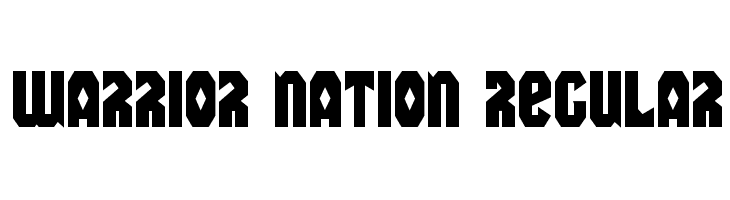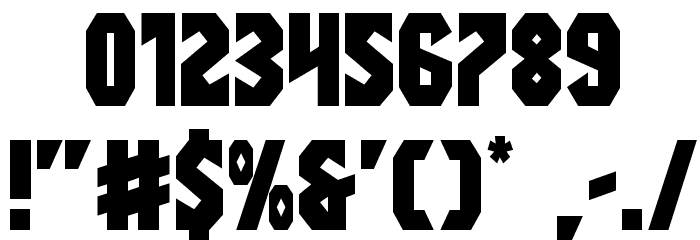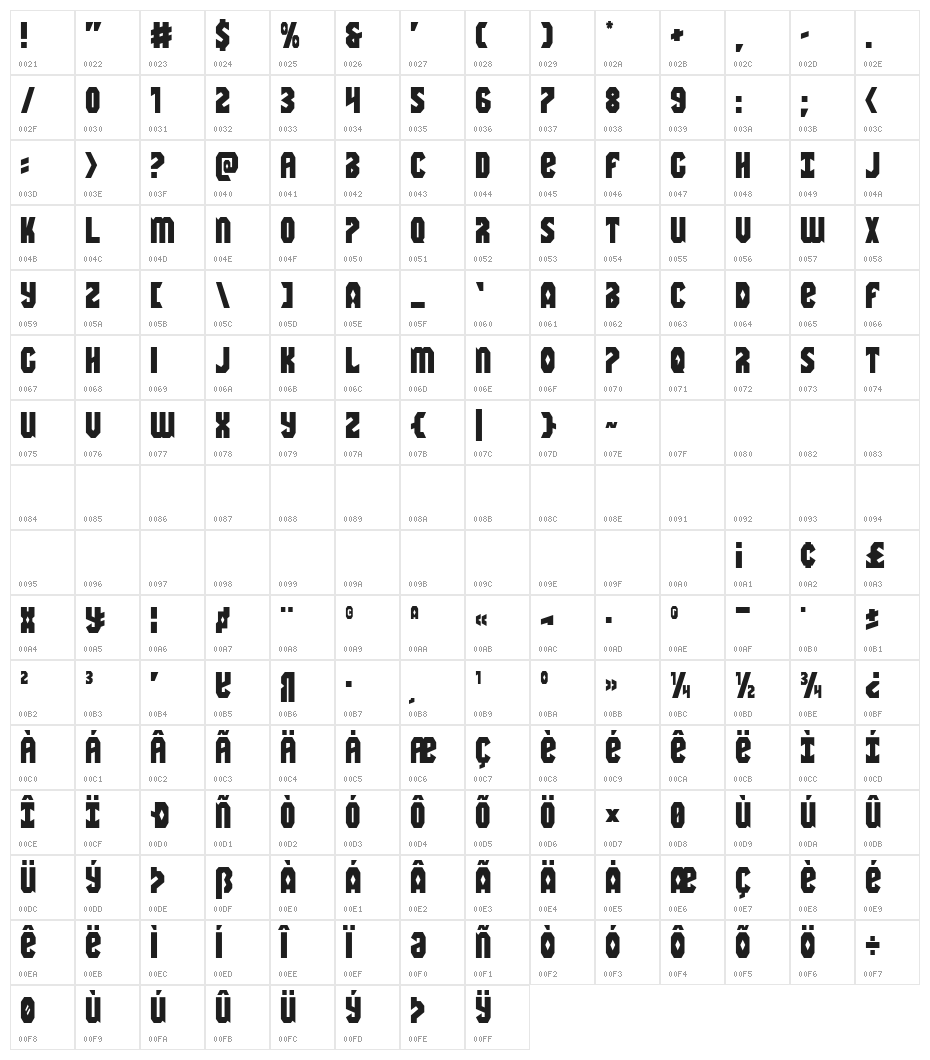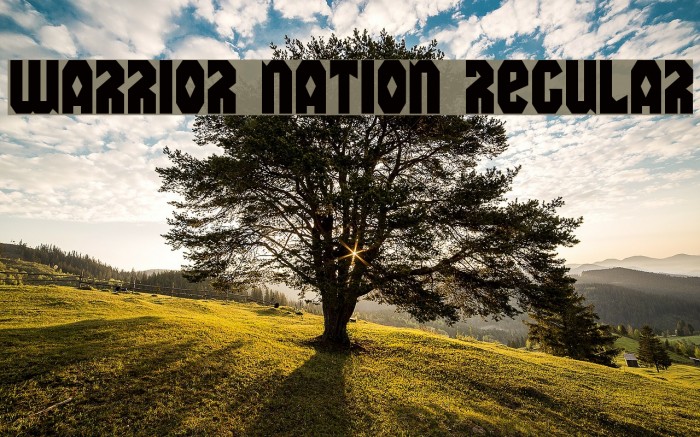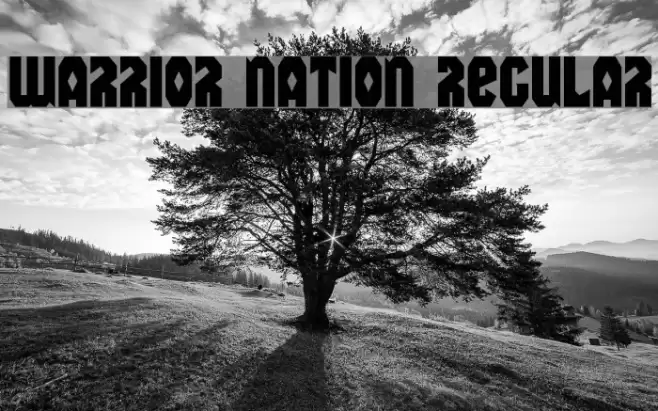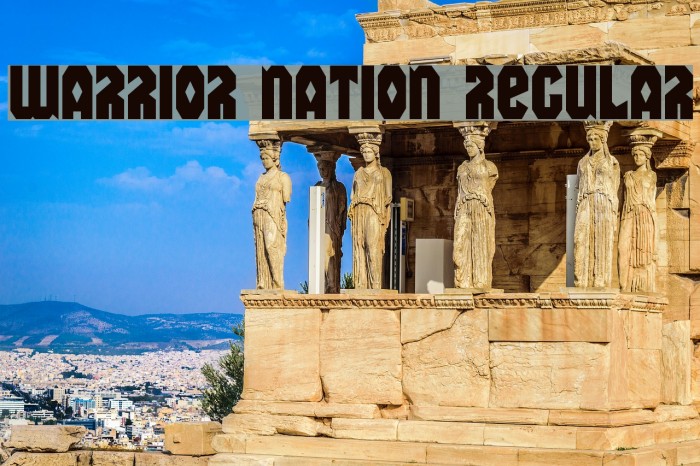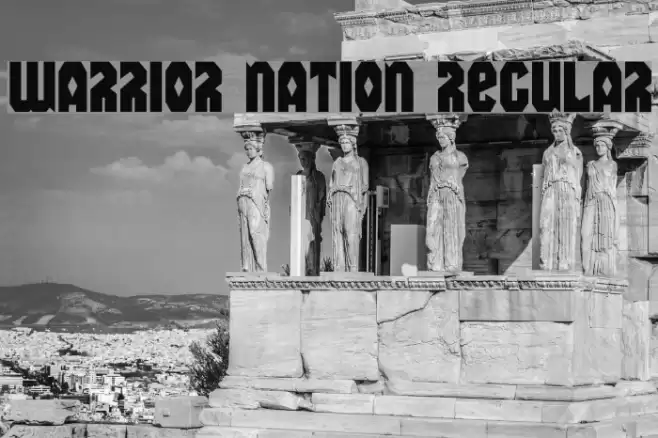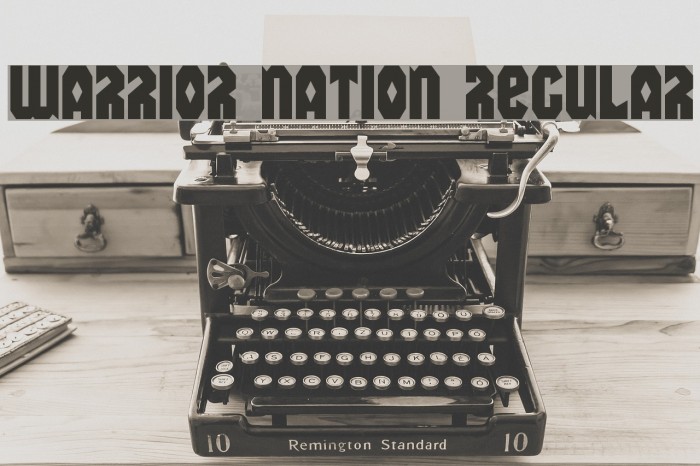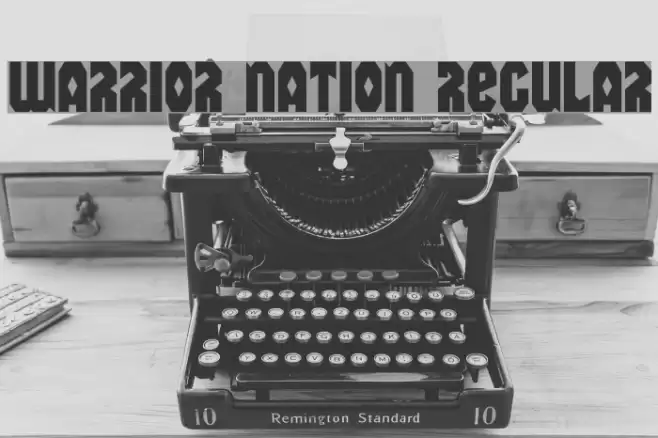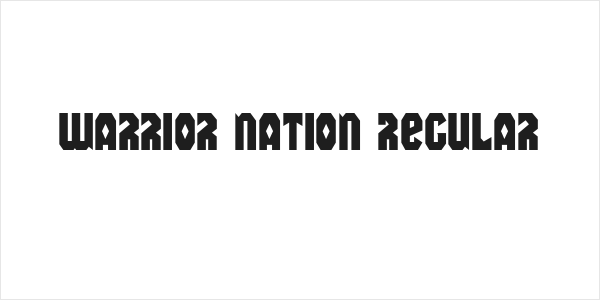
Warrior Nation Regular Font
Warrior Nation Regular Description
This font features a bold and aggressive design, characterized by sharp angles and a blocky structure. The uppercase letters are particularly striking, with a strong geometric influence that gives them a commanding presence. The numbers and special characters maintain this robust style, ensuring consistency across all elements. The font's design is reminiscent of military or sports themes, making it ideal for projects that require a strong, impactful visual statement. Its boldness and unique style make it stand out, while the consistent width and spacing provide a balanced appearance.
| Proposed Projects | Perfect for sports team logos, military-themed posters, video game titles, and bold branding projects. |